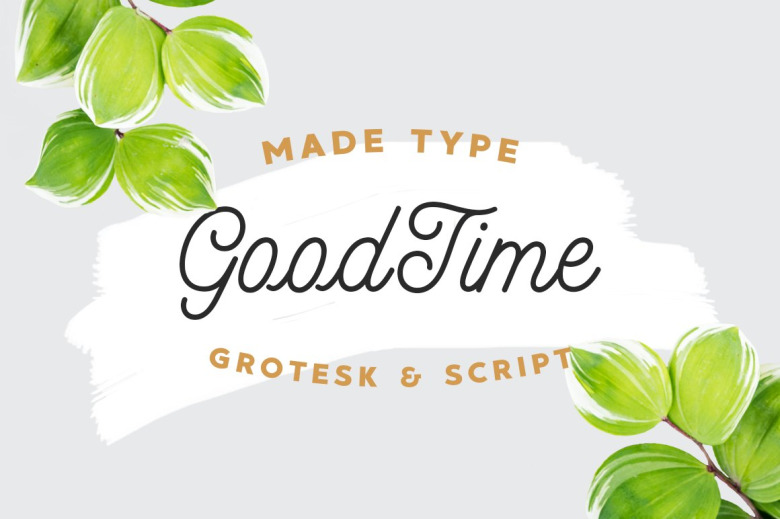
MADE GoodTime Grotesk Font
MADE GoodTime font duo is a monoline script and grotesk font that both work great together or alone. This delicious duo contains 2 fonts, especially designed to make sure there’s always one that fits your design needs.
The GoodTime gives an fresh look for any project from print to digital. The GoodTime are perfect for headlines and short texts. Use it for magazines, packaging, advertising, branding, posters, editorials, TV, movies and websites.